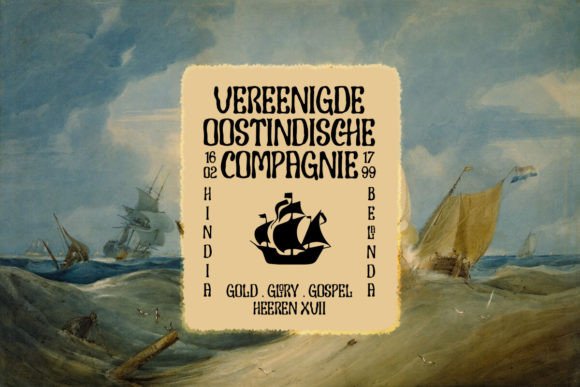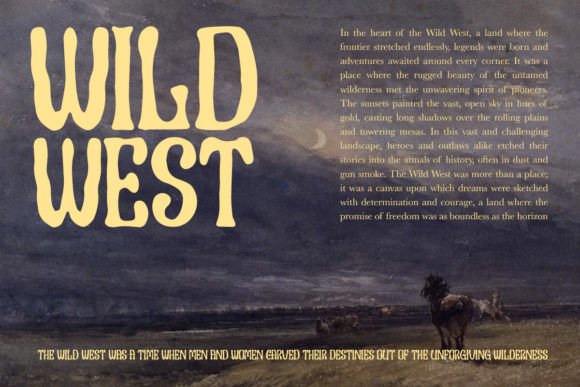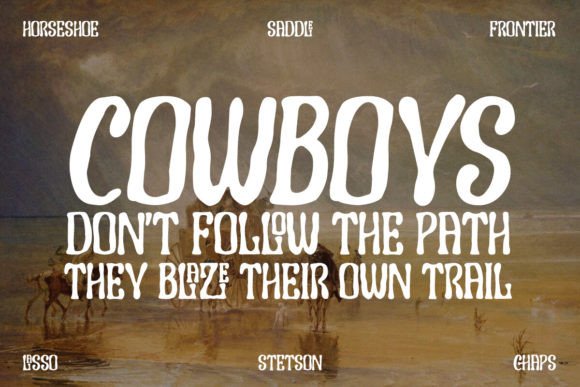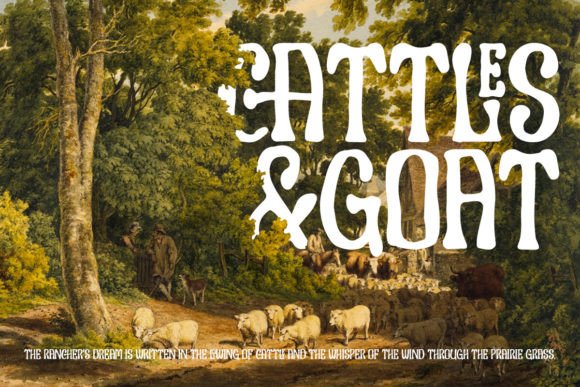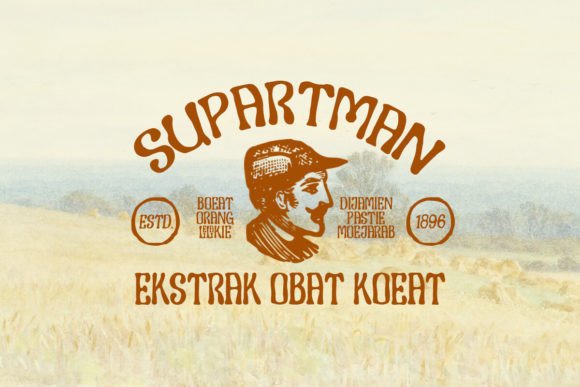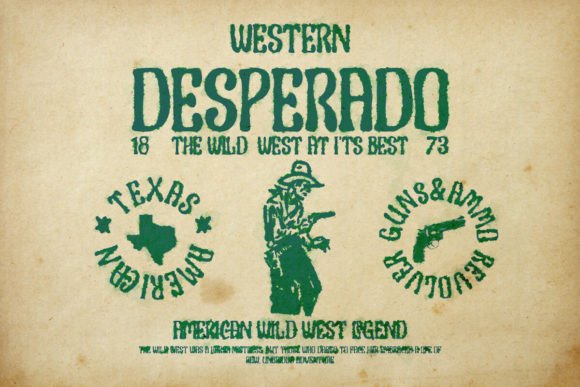
Discover the Charm of Caliche Font: A Perfect Blend of Rustic and Tropical Vibes
What Makes Caliche Font Special?
Caliche Font is a typeface that seamlessly blends the rustic charm of vintage craftsmanship with the carefree vibes of a tropical summer. It’s a font that’s all about character, with a unique personality that will elevate your design projects to the next level. One of the standout features of Caliche Font is that it comes in not one, but two families: Regular and Slant. This versatility makes it perfect for a wide range of design applications, from rustic and rugged to modern vintage and summer-inspired.
An Honest Review of Caliche Font
- ✅ Unique blend of rustic and tropical vibes
- ✅ Two font families to choose from: Regular and Slant
- ✅ Perfect for a wide range of design projects, from branding to packaging
- ✅ Easy to read, even at smaller font sizes
- ⚠️ Some users may find the font a bit too distressed or rough around the edges
- ⚠️ Limited availability of OpenType features, such as ligatures and stylistic alternates
The Backstory of Caliche Font
Caliche Font was designed with the intention of capturing the essence of a tropical summer, infused with the rustic charm of vintage craftsmanship. The designer wanted to create a font that felt like a warm summer day, with a hint of nostalgia and character. The result is a font that’s perfect for designers, crafters, and creative hobbyists who want to add a touch of personality to their projects.
Q: What is Caliche Font inspired by?
A: Caliche Font is inspired by the rustic charm of vintage craftsmanship and the laid-back vibes of a tropical summer.
Q: Is Caliche Font easy to read?
A: Yes, Caliche Font is designed to be easy to read, even at smaller font sizes.